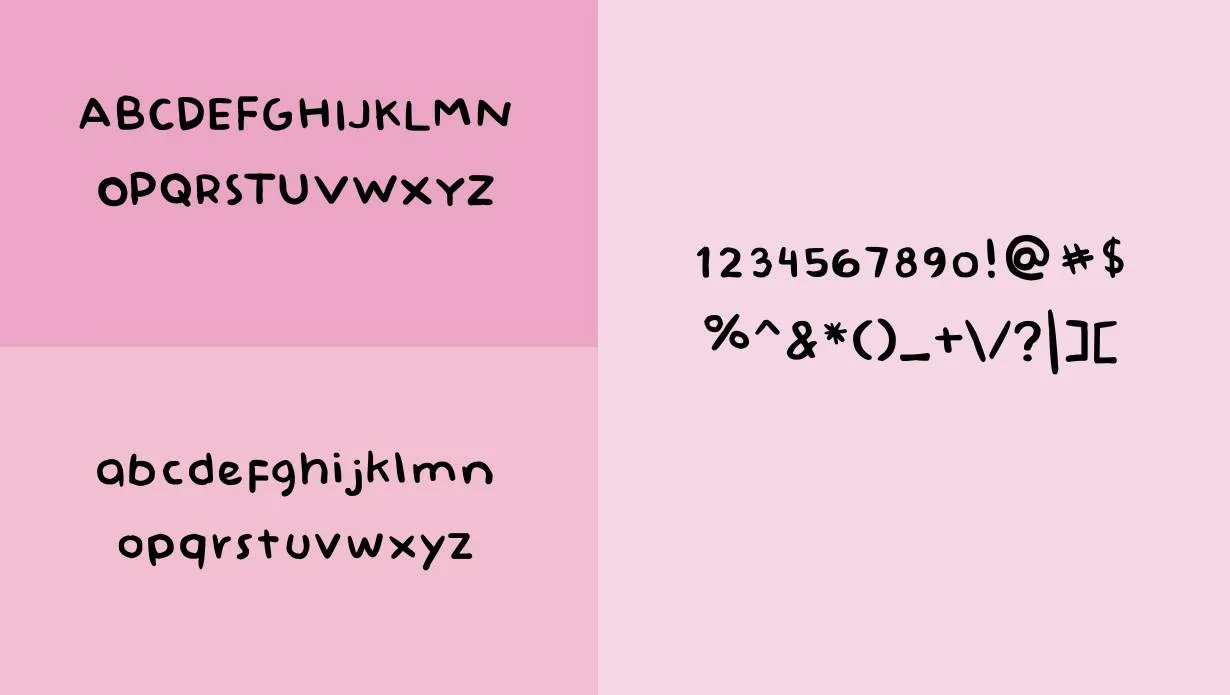
The Baby Doll Font is a charming choice, like a lullaby for your designs. Its gentle characters are perfect for crafting endearing graphics in Adobe Photoshop, adding a sweet touch to web design with CSS, or designing adorable documents in MS Word.
| Designer | Denise Bentulan |
This font effortlessly infuses a sense of innocence and sweetness into various design applications.